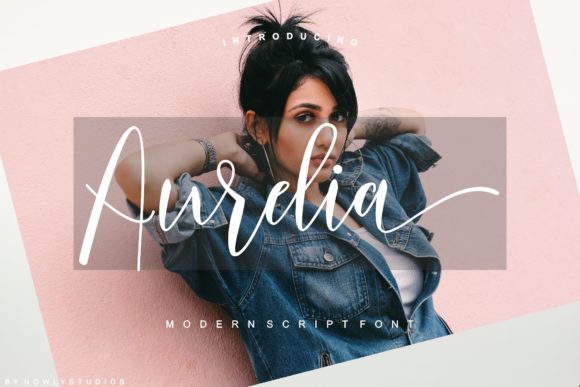
The Quest for the Perfect Script Font: My Encounter with Aurelia
I still remember the design project that led me to Aurelia Script Font. I was working on a branding project for a luxury wedding planner, and I needed a font that exuded elegance, sophistication, and a touch of whimsy. Hours of scrolling through font libraries and testing various scripts had me on the verge of a creative meltdown. That’s when I stumbled upon Aurelia, and it was love at first sight! ✨
An Honest Review of Aurelia Script Font
What I Love About Aurelia
- ✅ Its undeniably cool charm that adds a touch of sophistication to any design
- ✨ Elegant, flowing lines that mimic the beauty of handwritten script
- 🔥 Versatility: perfect for branding, wedding designs, and luxury product packaging
- 💻 Highly legible, even at smaller font sizes
While Aurelia is an exceptional font, there are a few minor considerations to keep in mind: 🤔
- 💸 Limited availability of Cyrillic characters (though the font does support some non-English languages)
The Story Behind Aurelia Script Font
Aurelia was designed by a talented type designer who drew inspiration from classic calligraphy and modern script fonts. The goal was to create a font that exudes elegance and sophistication while still feeling approachable and authentic. The result is a stunning script font that has captured the hearts of designers and crafters alike.
| Font Name | Aurelia Script Font |
| Author | nowlystudios |
Q: What languages does Aurelia support?
A: Aurelia supports English and some non-English languages, although the availability of certain characters may vary.
Q: Is Aurelia suitable for body text?
A: While Aurelia is a beautiful font, it’s best suited for headlines, titles, and short paragraphs. For body text, a more traditional serif or sans-serif font may be more suitable.